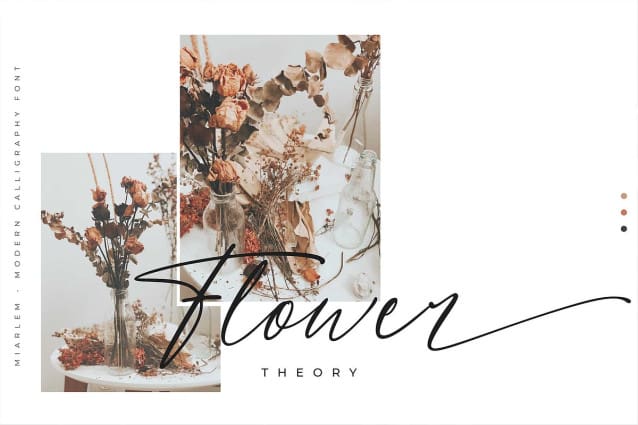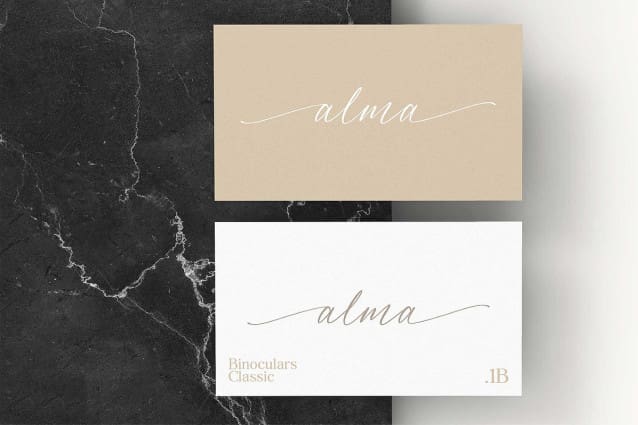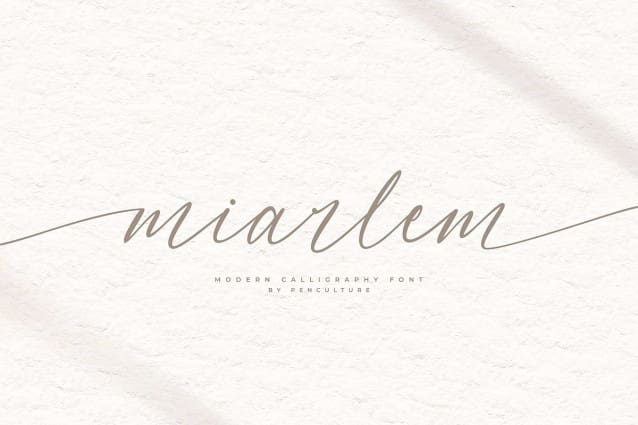
Miarlem Script Font
Miarlem Script Font is a modern calligraphy font that perfect for branding, wedding, apparel and many other. This font comes with gorgeous uppercase and lowercase, punctuation, multilingual language. This font also equipped with beautiful beginning and ending tail and ligature which will be perfect for your design project.